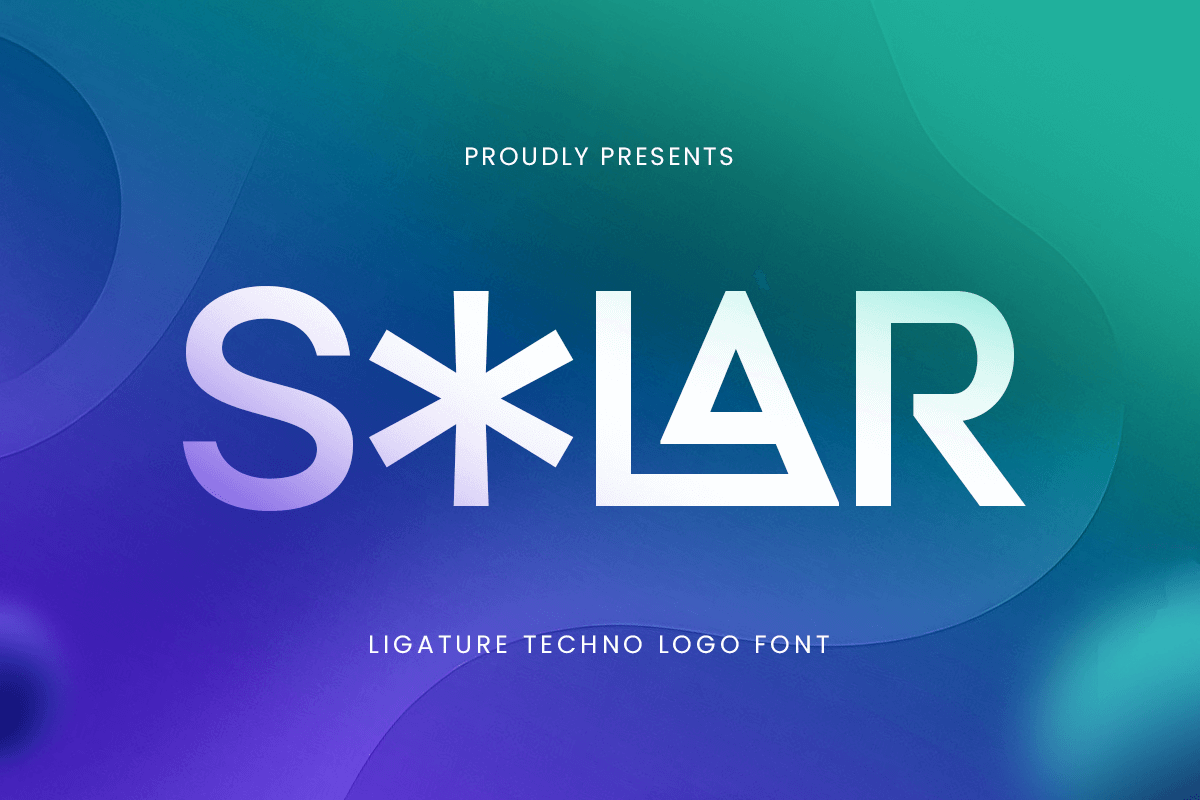
Solar
-Ligature Techno Logo Font
Solar - Ligature Techno Logo Font
Solar is a sleek ligature techno font built for cutting-edge branding and futuristic visual identities. With unique letter connections and bold geometric styling, Solar font is perfect for tech startups, app logos, digital products, and sci-fi visuals.
Its modern aesthetic blends clean minimalism with high-tech energy, making it adaptable across user interfaces, packaging, and corporate design systems. Whether you're building a brand in AI, crypto, or software, Solar font delivers a sharp, confident impression.
Empower your brand with forward-thinking design using Solar — a font made for innovation and digital growth.
Solar – Ligature Techno Logo Font Features
• Modern techno style with smart ligature combinations
• Available with Huge Alternate & Ligature Collections
• Ideal for tech, apps, startups, and futuristic branding
• OpenType features with alternate characters
Advance your design system with Solar — a smart font built for the future of branding.
Design bold. Think future. Power it with Solar. 🌐⚡